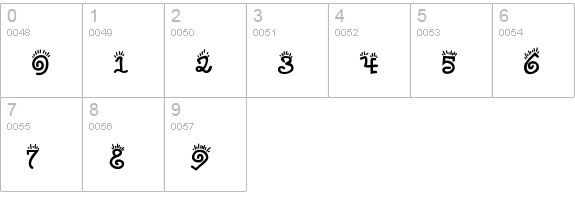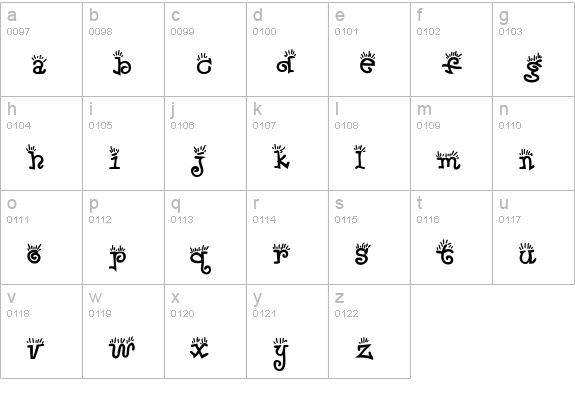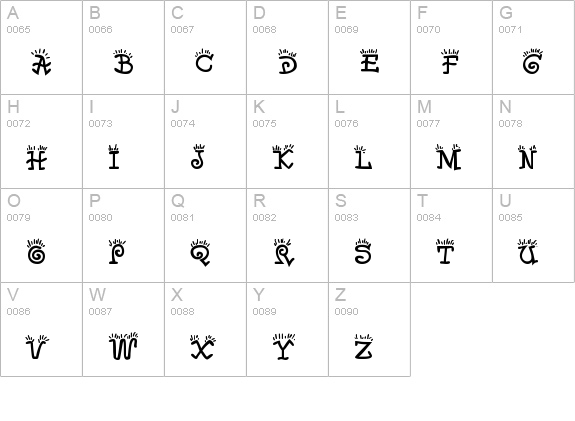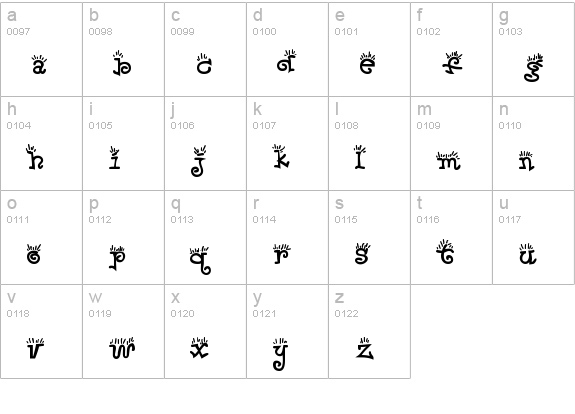
Wake & Bake Font Details
Introducing Wake & Bake, the perfect font to add a touch of playfulness and creativity to your designs. This unique typeface features a delightful balance of bold and rounded letterforms that are sure to catch the eye and bring an extra dose of charm to any project. With its quirky yet legible design, Wake & Bake is ideal for a variety of applications, from branding and packaging to headlines and social media graphics. Whether you're creating a logo for a bakery, designing a poster for a music festival, or crafting a fun greeting card, this font is guaranteed to make a lasting impression. Wake & Bake is not only visually appealing, but it also offers a high level of versatility. Its bold and friendly appearance makes it suitable for both digital and print designs, ensuring that your message will be effectively conveyed across various mediums. The best part? Wake & Bake is available to download for free at FontsMarket.com. Yes, you read that right – this fantastic font can be yours without spending a single penny. Simply visit FontsMarket.com, locate the font, and click the download button to start using Wake & Bake in all your creative endeavors. So why wait? Get your hands on Wake & Bake today and infuse your designs with a touch of whimsy and character. Whether you're a professional designer or a hobbyist, this font is a must-have addition to your collection. Embrace the freedom of creativity with Wake & Bake – the perfect blend of style, accessibility, and affordability.